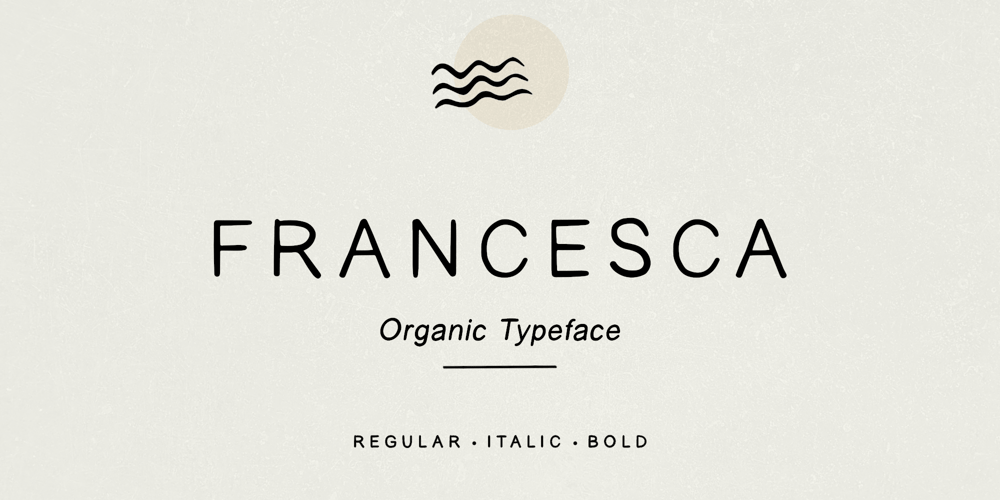
Francesca Sans Font Family was designed by Elvina Gafarova and published by Elvina Studio. Francesca Sans contains 4 styles and family package options. Introducing, the Francesca Sans – Sweet Handwritten Font. Great for headlines and body text. Upper/lowercase, numbers, punctuations; Regular, Italic, Bold, Bold Italic. Language support: English, German, French, Spanish, Italian, Danish, Finnish, Portuguese, Swedish, Norwegian, Dutch, Indonesian, Luxembourgish, Icelandic, Cornish, Hungarian, Filipino, Turkish.I hope you enjoy!